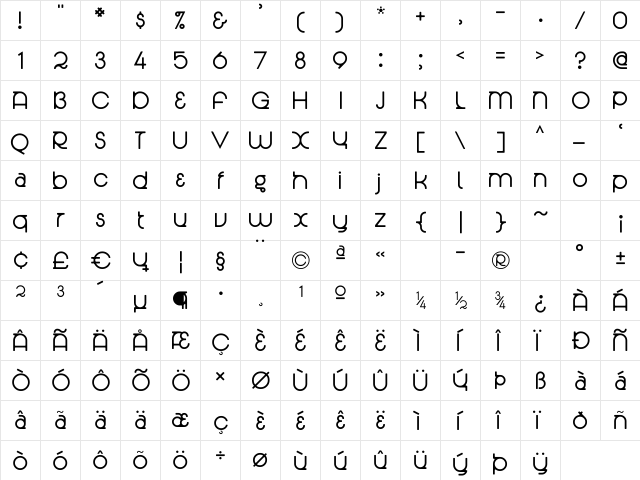
Radian Regular
| Foundry | Objets Dart |
| Designer | Darren Rigby |
Design Context for Radian Typeface
Radian is a composed and adaptable typeface that performs quietly and consistently across a wide range of design contexts.
Pro Tip: Pair Radian with a font of contrasting weight or personality to build a more expressive typographic hierarchy.